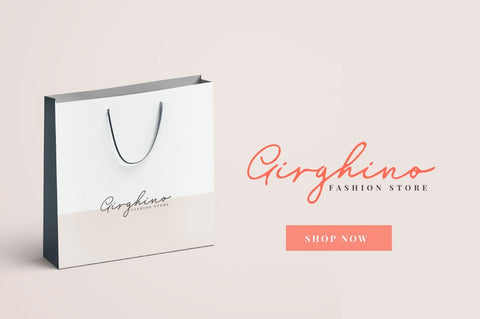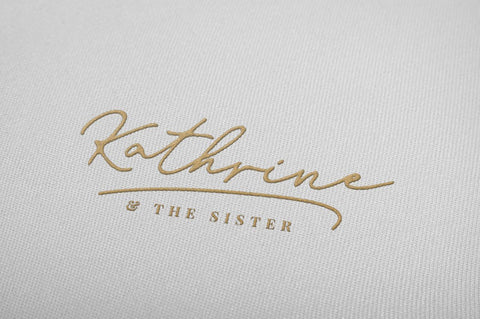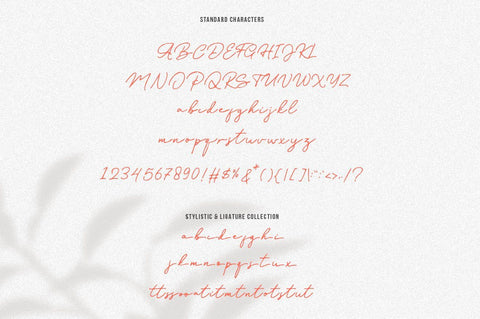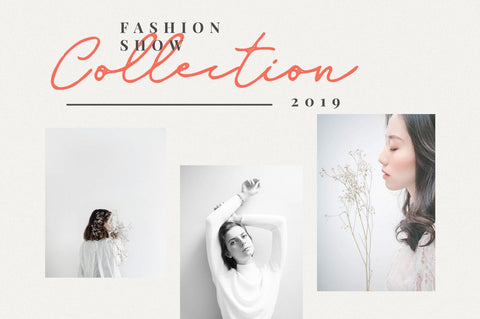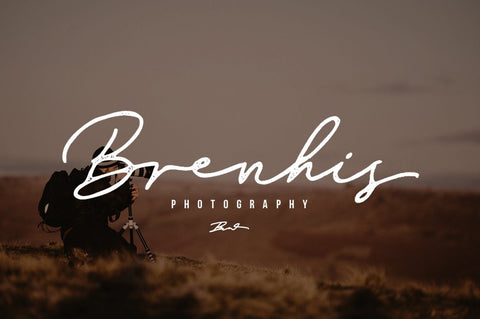
Old Bridges - Vintage Font
Old Bridges Inspired by Modern Vintage Signature font with 3 styles (Regular, Stamp, Rough)
Old Bridges Script allowing you to create hand lettering is an instant and a super handy set of bonus Swash. Ideal for logos, handwritten quotes, product packaging, header, poster, merchandise, social media & greeting cards.
Font Styles:
- Regular
- Stamp
- Rough
- Basic Latin A-Z and a-z
- Numbers
- Symbols
- Stylistic Set
- Ligature